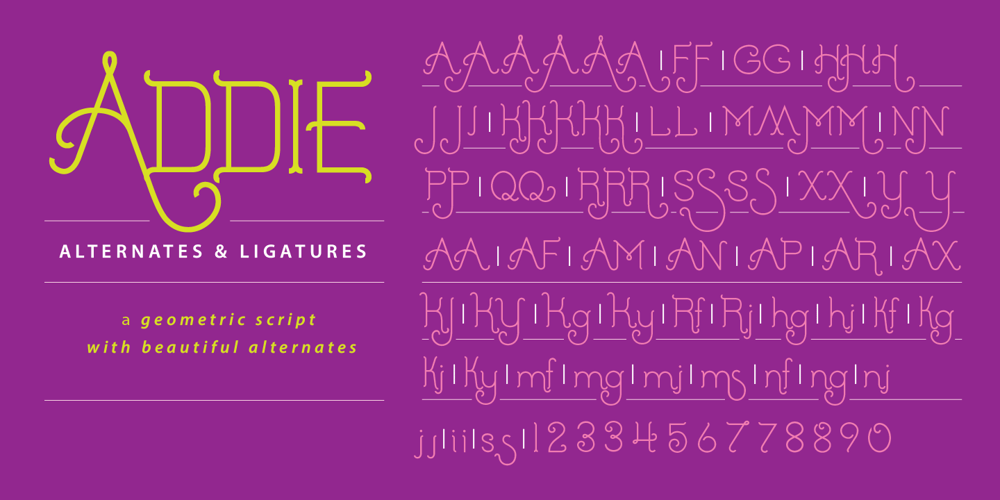
Addie Font Family was designed by Jim Godfrey and published by Jim Godfrey Design. Addie contains 1 styles and family package options. This typeface is a monoline geometric script, meaning it has some qualities of scripts but is based on geometric shapes like ovals, circles, rectangles, etc. It is decorative and versatile and works well for projects that need to look both elegant or a little whimsical. There are 26 ligatures and 28 alternate glyphs that allow some of the letterforms to curl to the left or the right. Addie has been designed for use as a display typeface.